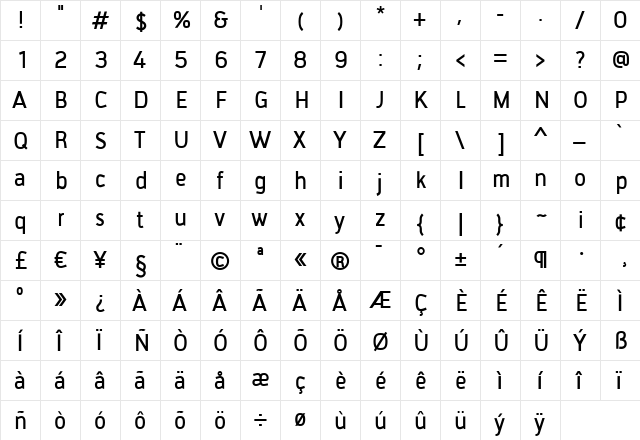
Tirana Bold Regular
| Foundry | Rui Abreu |
| Designer | Rui Abreu |
Design Context for Tirana Bold Typeface
Tirana Bold takes a measured approach to typography — its balanced proportions and neutral character make it a reliable workhorse for both digital and print work. Its bold stroke weight gives it real presence on the page.